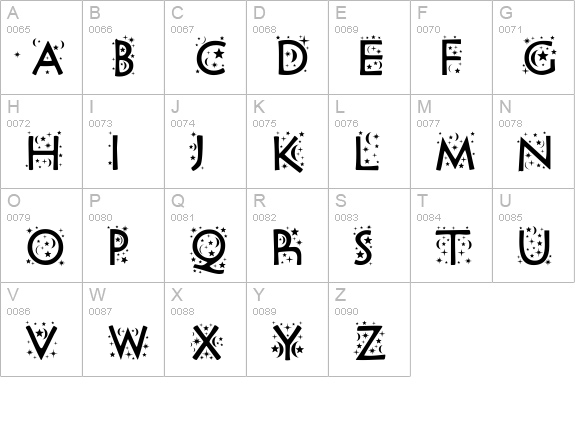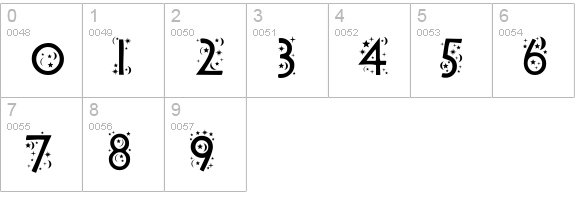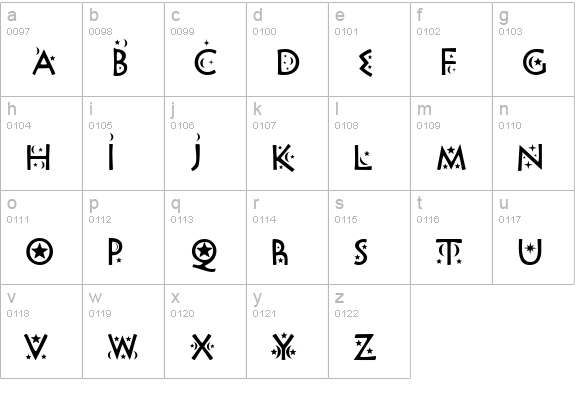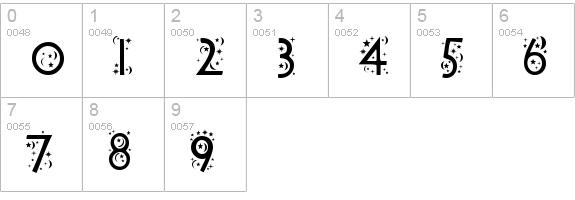
The Night Sky font is a stunning and elegant typeface that captures the beauty and mystery of a starry night sky. Its delicate curves and graceful lines evoke a sense of wonder and magic, making it the perfect choice for any project that requires a touch of sophistication and whimsy. Whether you're designing invitations, branding materials, or social media graphics, Night Sky will add a touch of elegance and charm to your work. What's even better is that Night Sky is completely free to download at FontsMarket.com. This means you can add this gorgeous font to your collection without any cost, making it a valuable asset for any designer or creative professional. Don't miss out on the opportunity to elevate your designs with the enchanting Night Sky font - download it for free today!